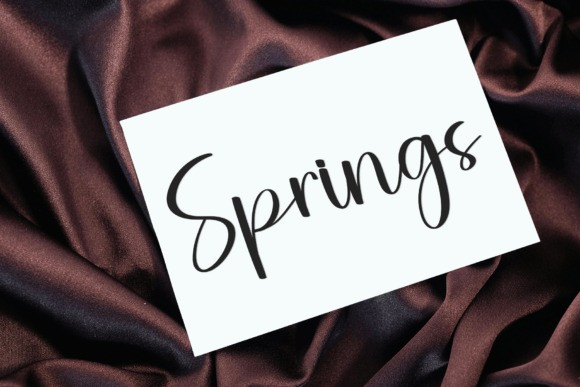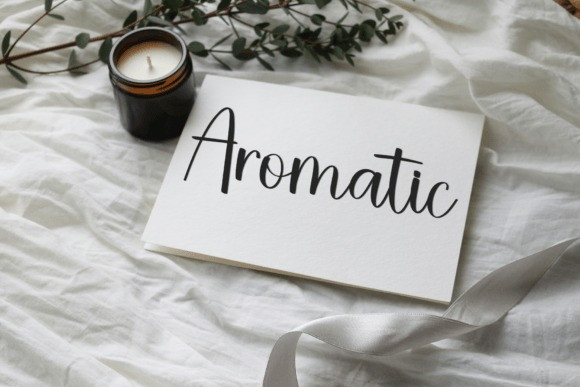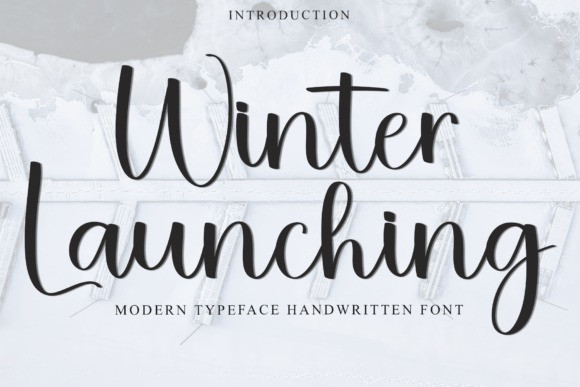
Winter Launching Font
Winter Launching Font is a sweet and friendly handwritten font. Its natural and unique style makes it incredibly fitting to a large pool of designs. The only limit is your imagination!